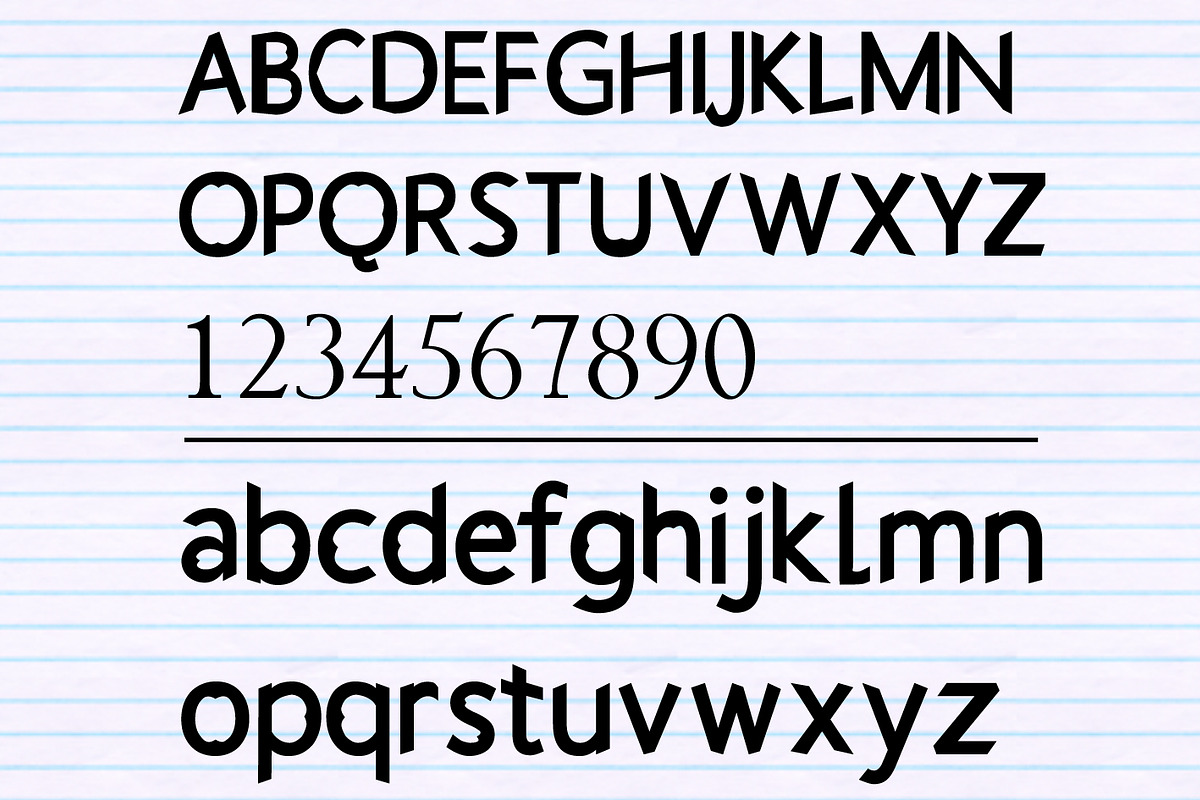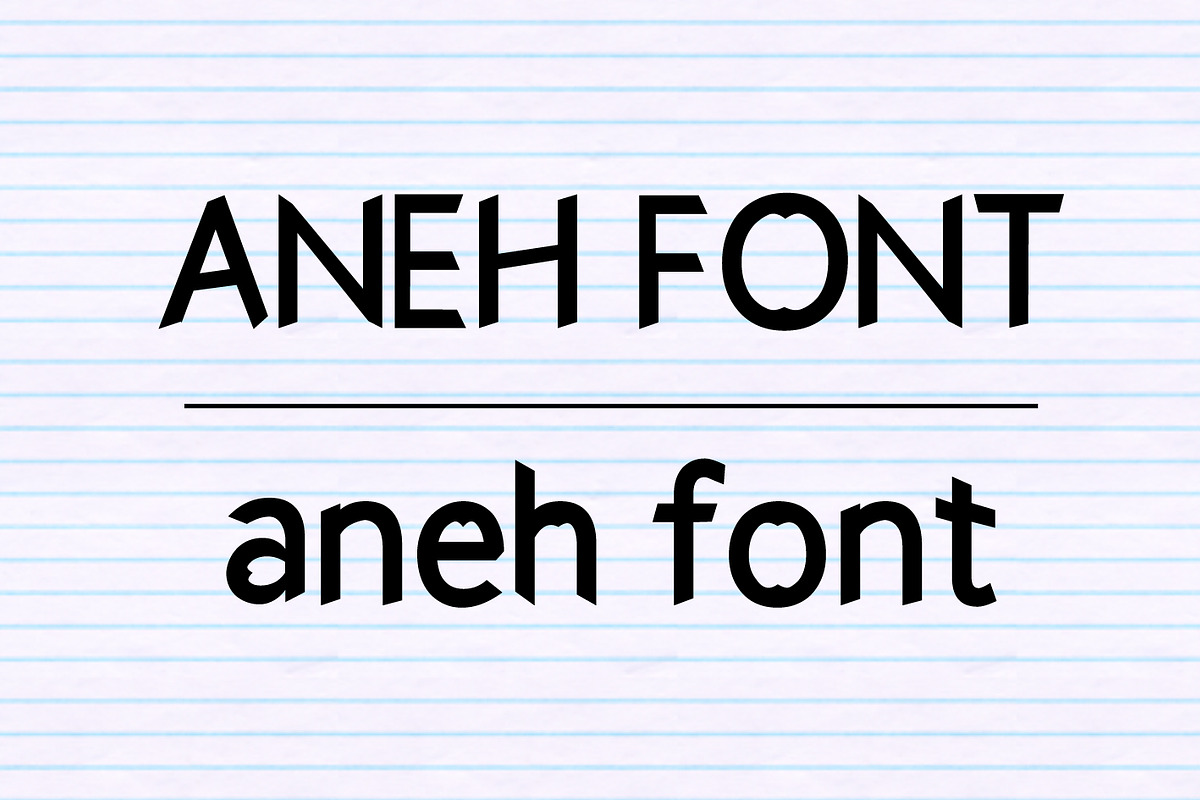
Aneh Font
Aneh Font by ABAZ SHOP COLLECTION is a font selected for branding, posters, packaging, typography.
Aneh Font by ABAZ SHOP COLLECTION fits naturally into Branding, posters, packaging, typography.